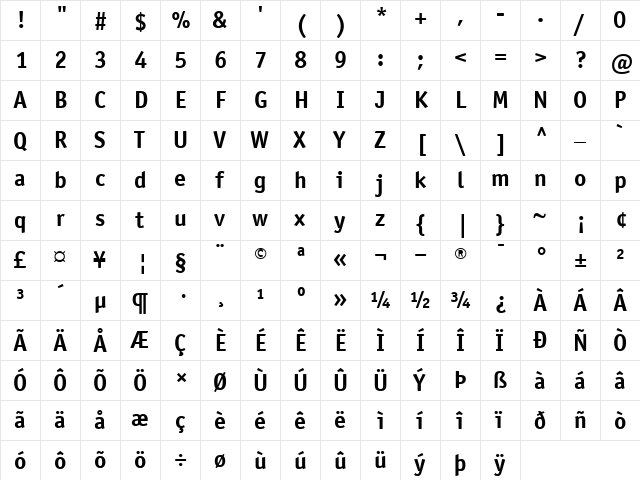
OffensiveBold Bold
Design Context for OffensiveBold Typeface
OffensiveBold offers clean, dependable letterforms without strong stylistic allegiance, making it a practical choice for designers who need flexibility. The heavy weight commands attention and anchors typographic hierarchies.
Pro Tip: Pair OffensiveBold with a font of contrasting weight or personality to build a more expressive typographic hierarchy.